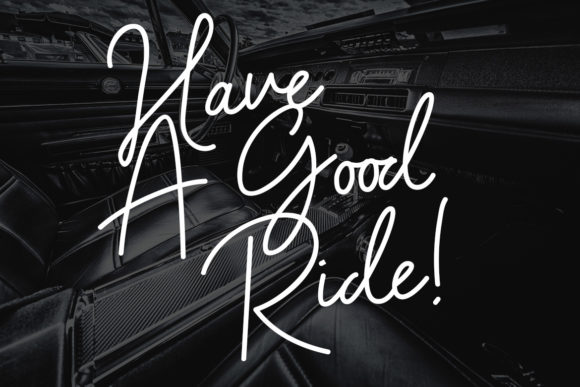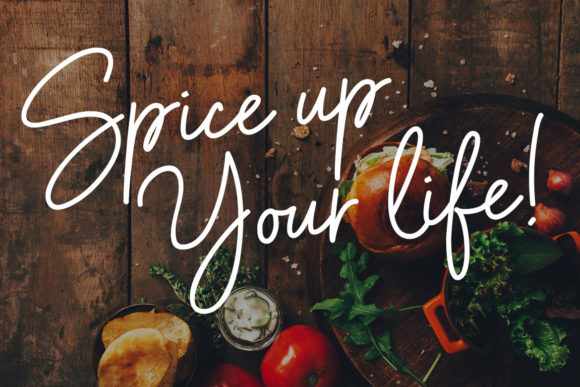
Barcelony Font
db-ku.com - Script & Handwritten -- The Barcelony is an elegant and smooth signature script. It has a handwritten touch which will give your design a personal feel.